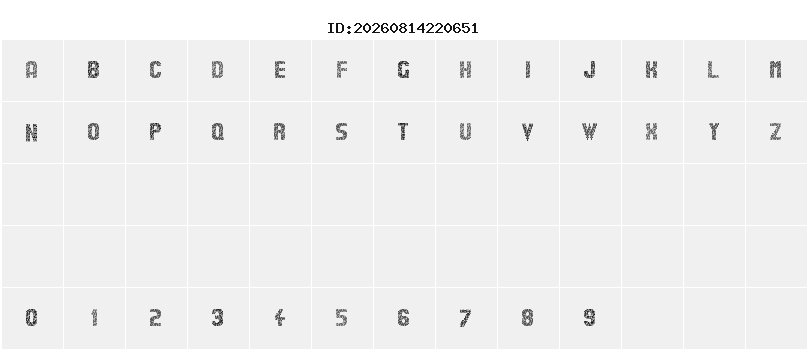
• Font Name: Stardots
• Full Font Name: Stardots
• Designer: imagex
About Stardots.ttf
Stardots.ttf is a modern, elegant sans-serif font designed for ultimate readability and visual harmony. Perfect for branding, headlines, web design, and print materials.